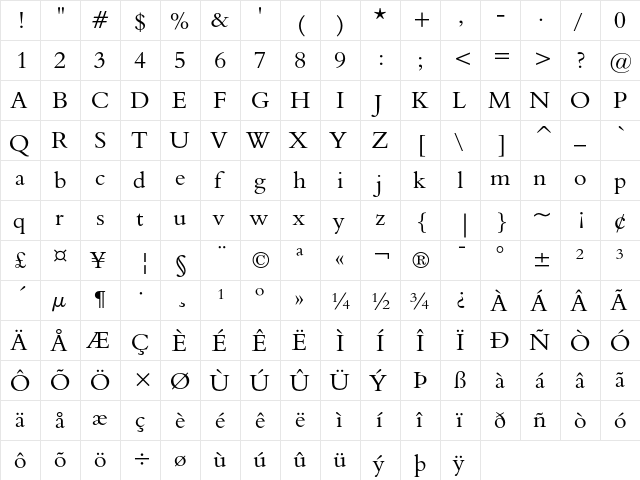
Aldine 401 Regular
Design Context for Aldine 401 Typeface
Aldine 401 offers clean, dependable letterforms without strong stylistic allegiance, making it a practical choice for designers who need flexibility.